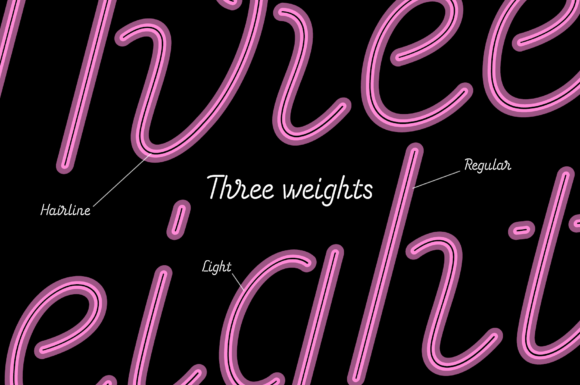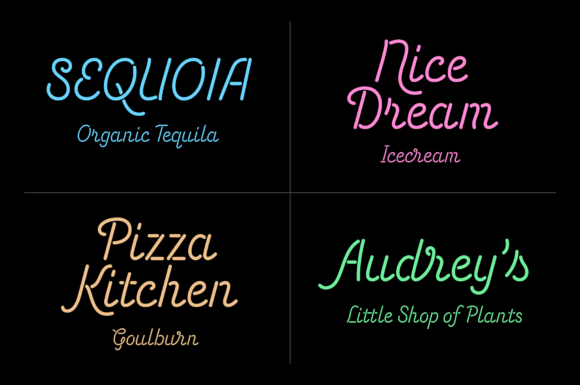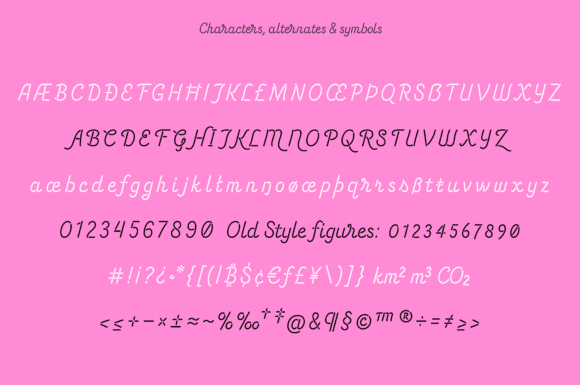
About Energetic Script Font
Energetic Script is a delicate, elegant and flowing handwritten font. It has beautiful and well balanced characters and as a result, it matches a wide pool of designs. Add it to your most creative ideas and notice how it makes them come alive!